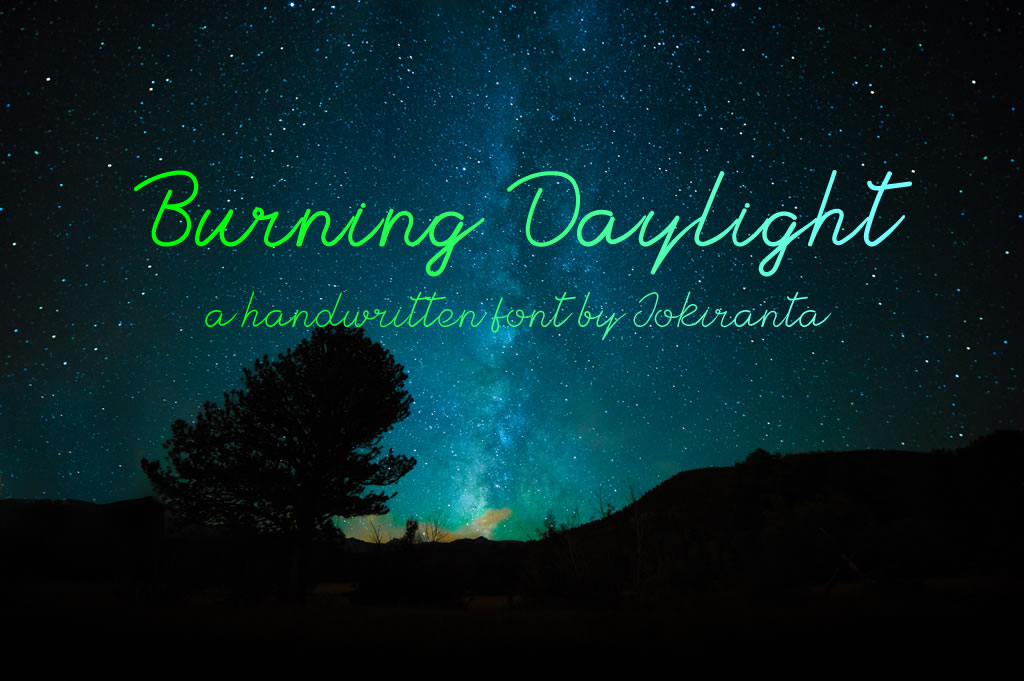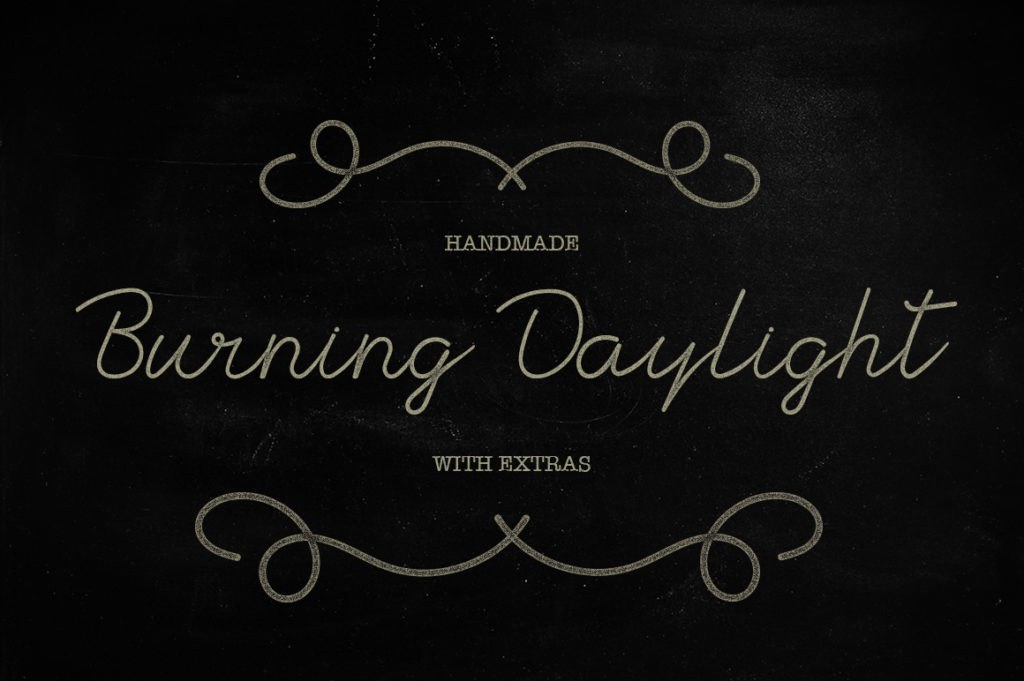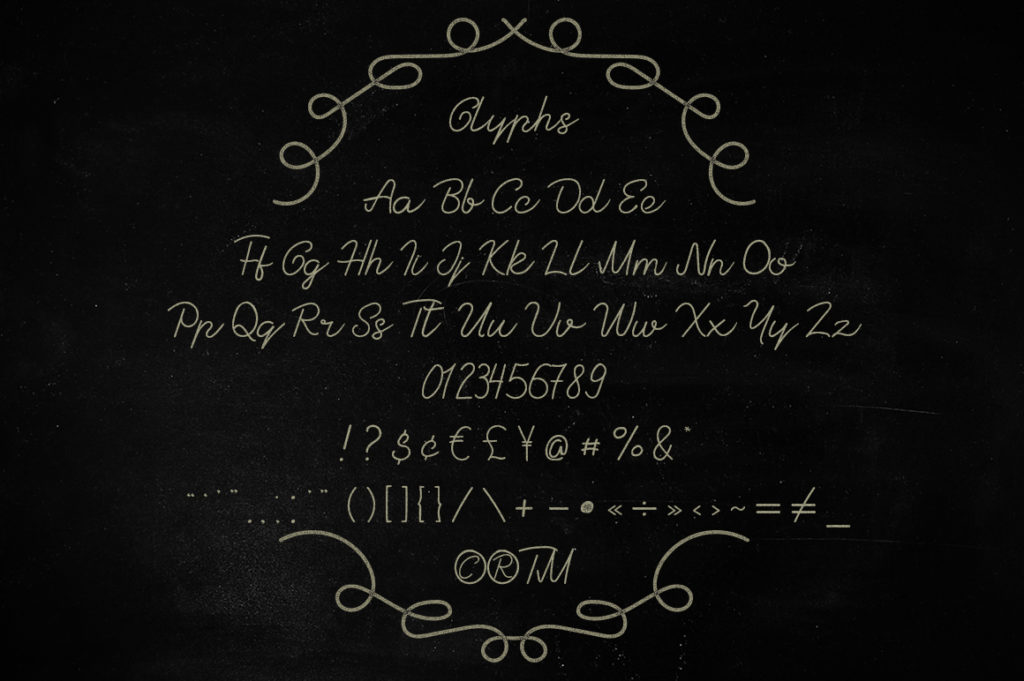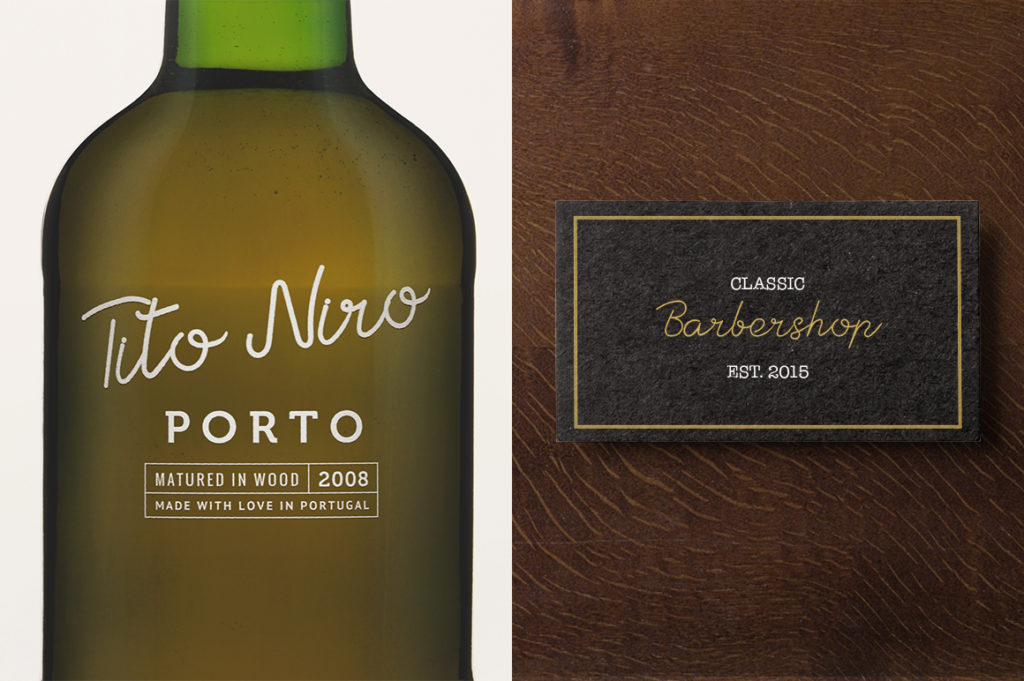
Burning Daylight Font
About Burning Daylight Font
Burning Daylight is a stunning handwritten font created by Jokiranta.
This font can be used for many types of projects. For creating beautiful wedding invites, birthday cards, nursery wall art, and much more.